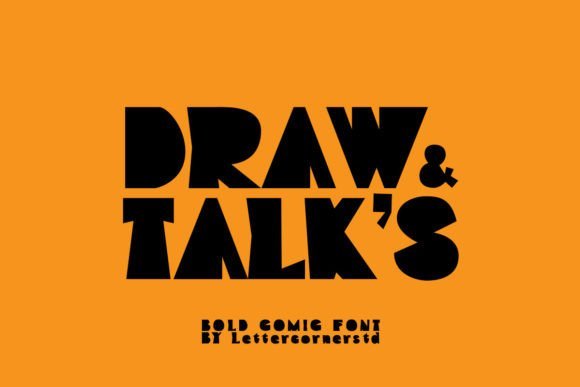
Remember the thrill of sitting in a room filled with crayons, markers, and paint, letting your imagination run wild as you brought your favorite cartoon character to life? That sense of creative freedom is exactly what drives designers to push the boundaries of their work. And when it comes to adding a playful touch to your designs, one font stands out from the rest: the Draw and Talks Font.
This fun and cool display font is perfect for cartoon-related designs, children’s games, or any project that requires a whimsical flair. With its unique style and versatility, the Draw and Talks Font is an invaluable tool for designers looking to add a bit of magic to their work. Whether you’re working on a branding project, a children’s book, or a social media campaign, this font is sure to bring a smile to your face and delight your audience.
Key Features of Draw and Talks Font
- Unique Characteristics: Designed with a focus on readability and legibility, making it ideal for presentations, talks, and other visual communications.
Draw and Talks Font Review
Overall, I’d say the Draw and Talks Font is a decent addition to any designer’s toolkit, but it’s not without its quirks. Let’s start with the positives.
- Unique and Expressive Style: Draw and Talks Font is a great choice for designers who want to add a bit of whimsy and personality to their projects.
- Legibility**: The font is surprisingly easy to read, even at smaller sizes.
- Customization Options**: The font includes a range of styles and weights, making it easy to find the perfect fit for your project.
However, there are a few areas where the font falls short.
- Lack of Kerning**: The font could benefit from improved kerning, especially in the more condensed weights.
- Not Ideal for Body Text**: While the font is great for headings and titles, it’s not the best choice for body text due to its irregular spacing.
Overall, I’d recommend the Draw and Talks Font for designers who want to add a bit of flair to their projects. Just be aware of its limitations and take them into consideration when choosing the right font for the job.
The Draw and Talk font is ideal for:
- Creating engaging presentations and slides.
- Designing eye-catching social media graphics.
- Adding a playful touch to digital documents and reports.
For the best results, use the Draw and Talk font in conjunction with bold colors and creative layouts.